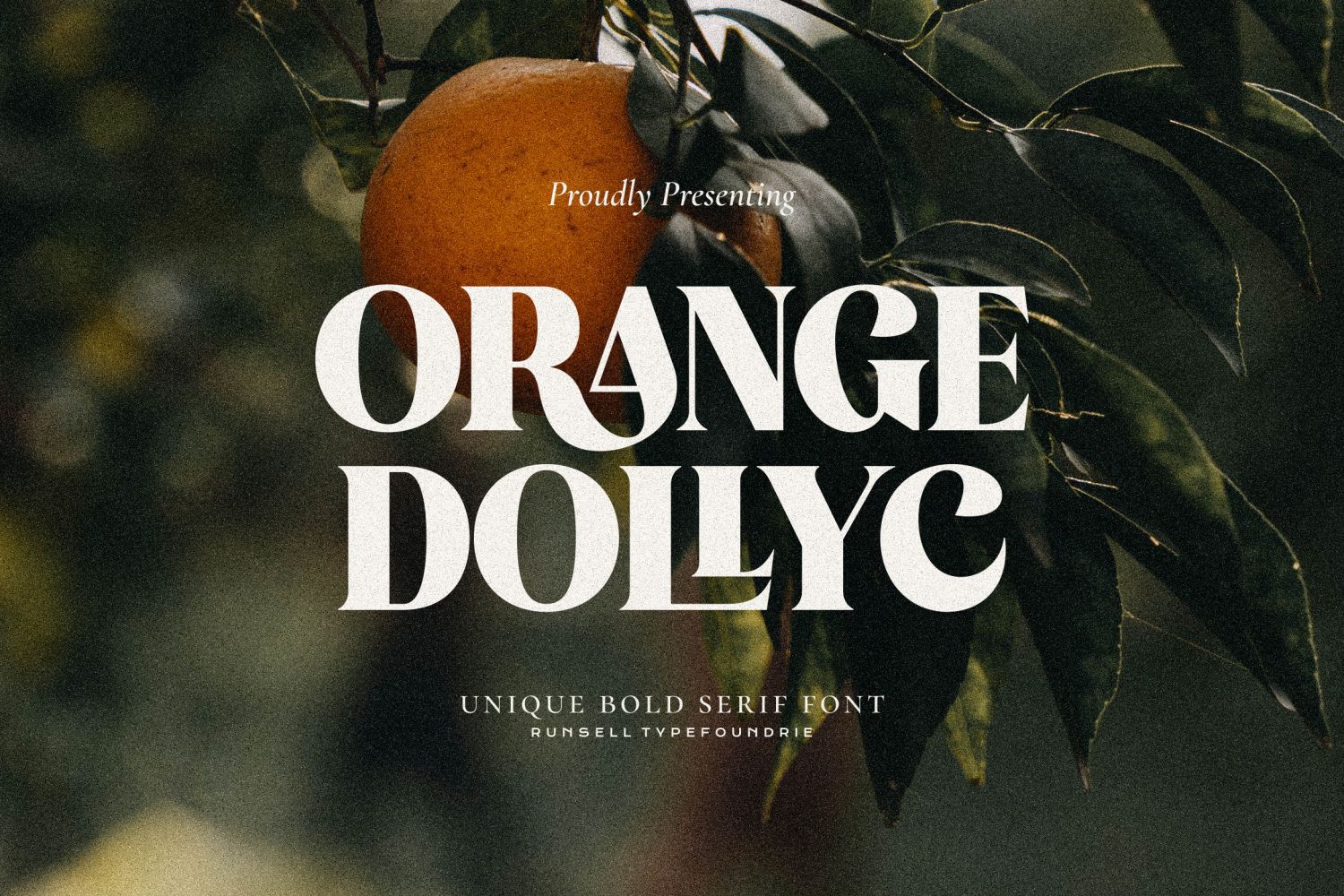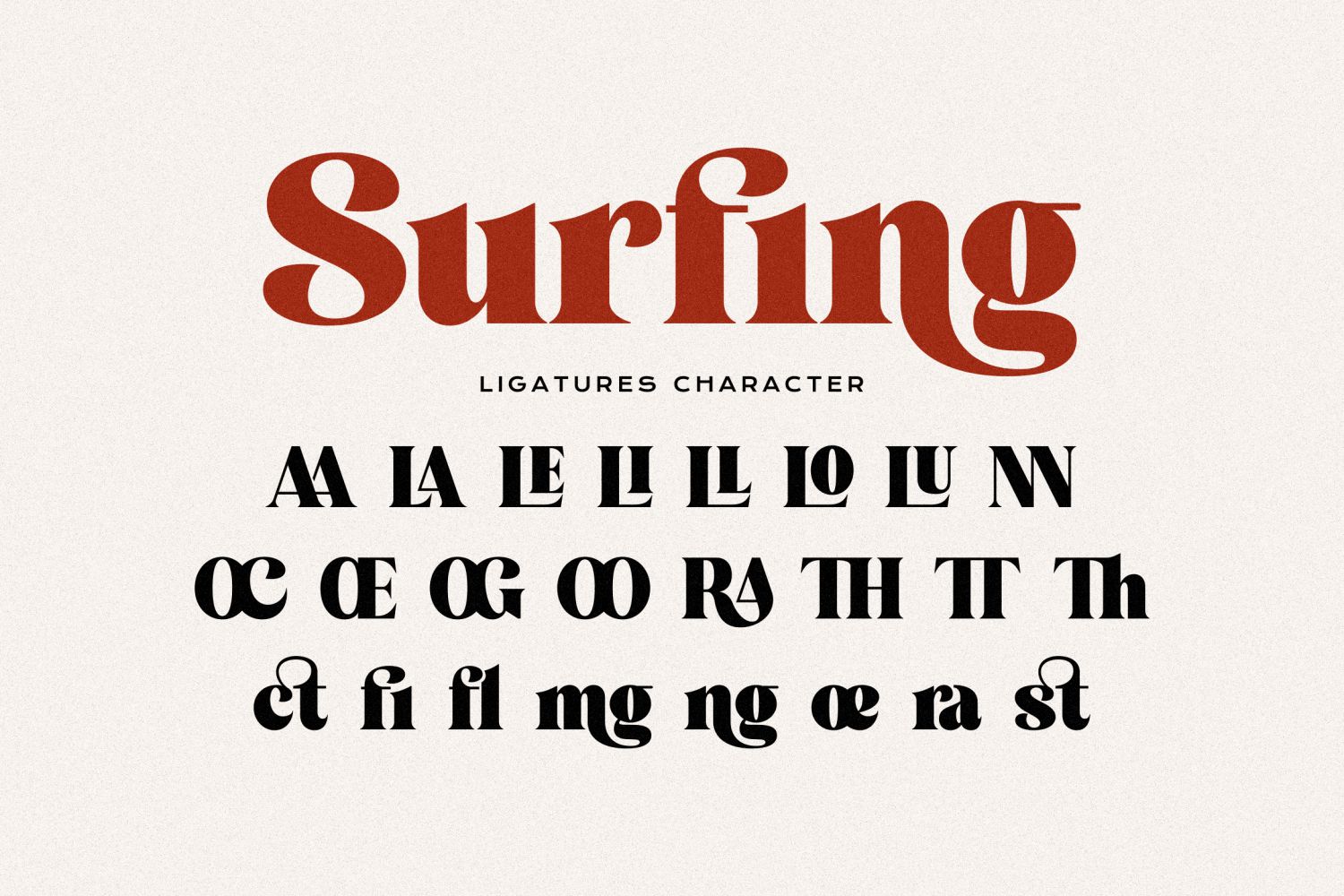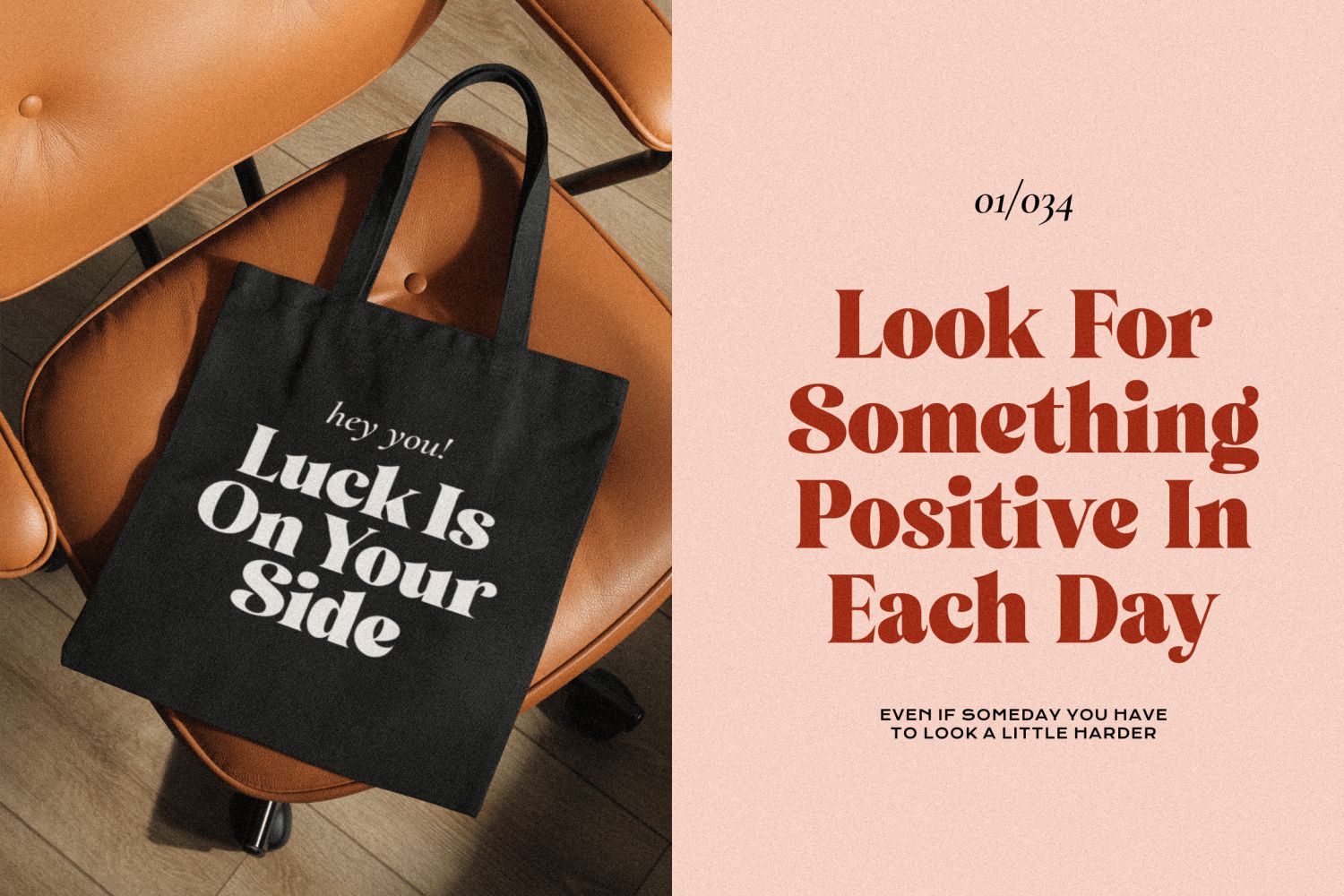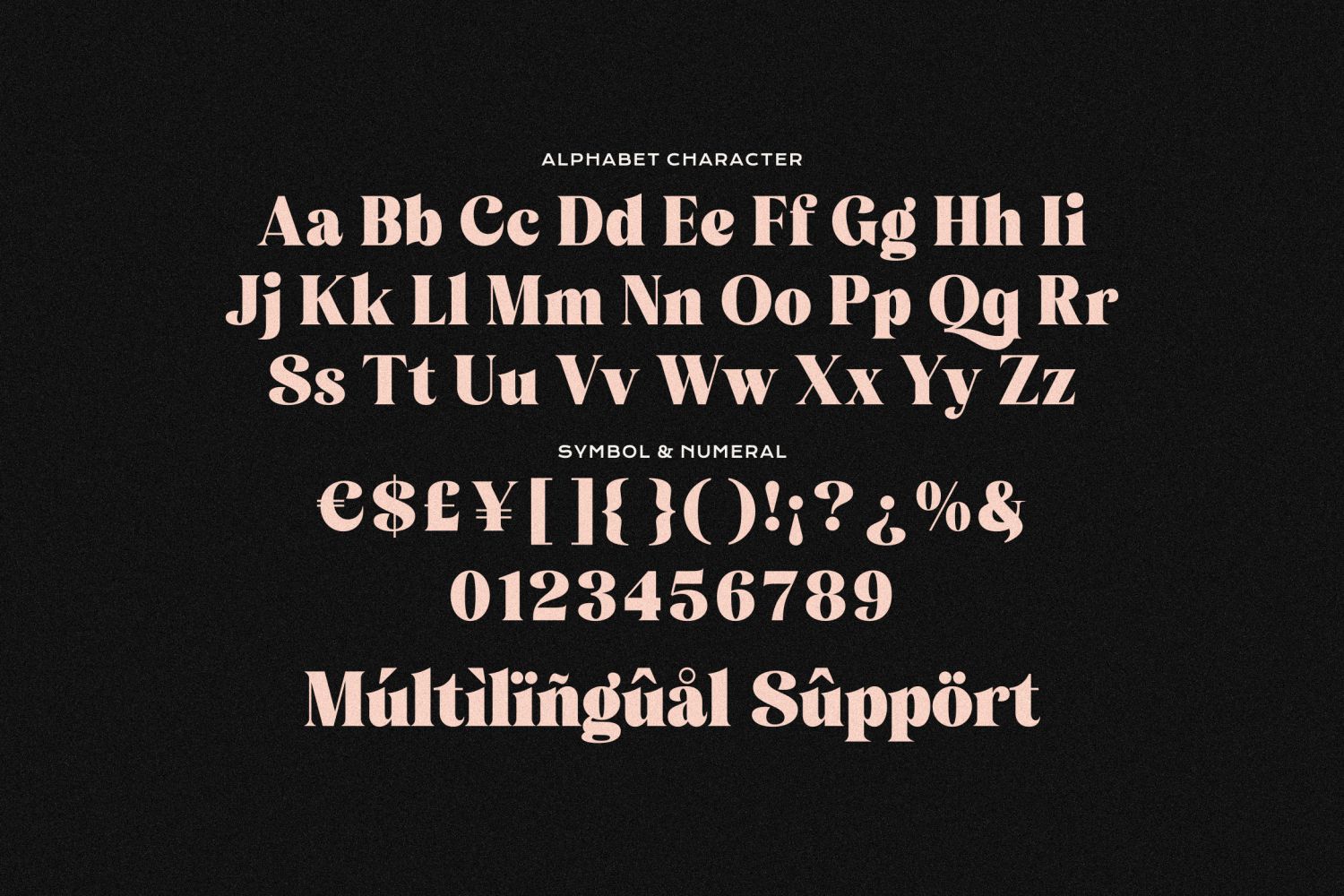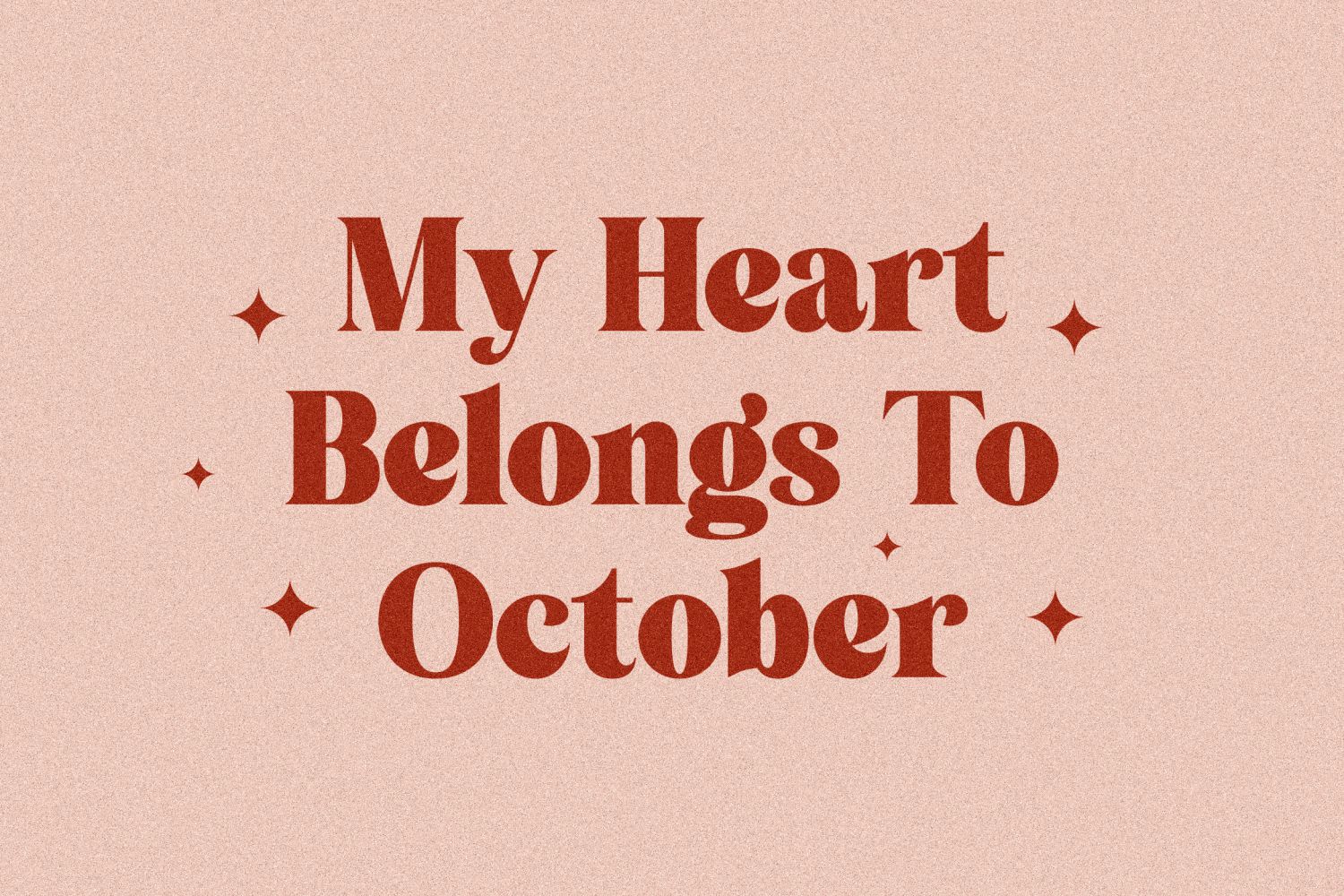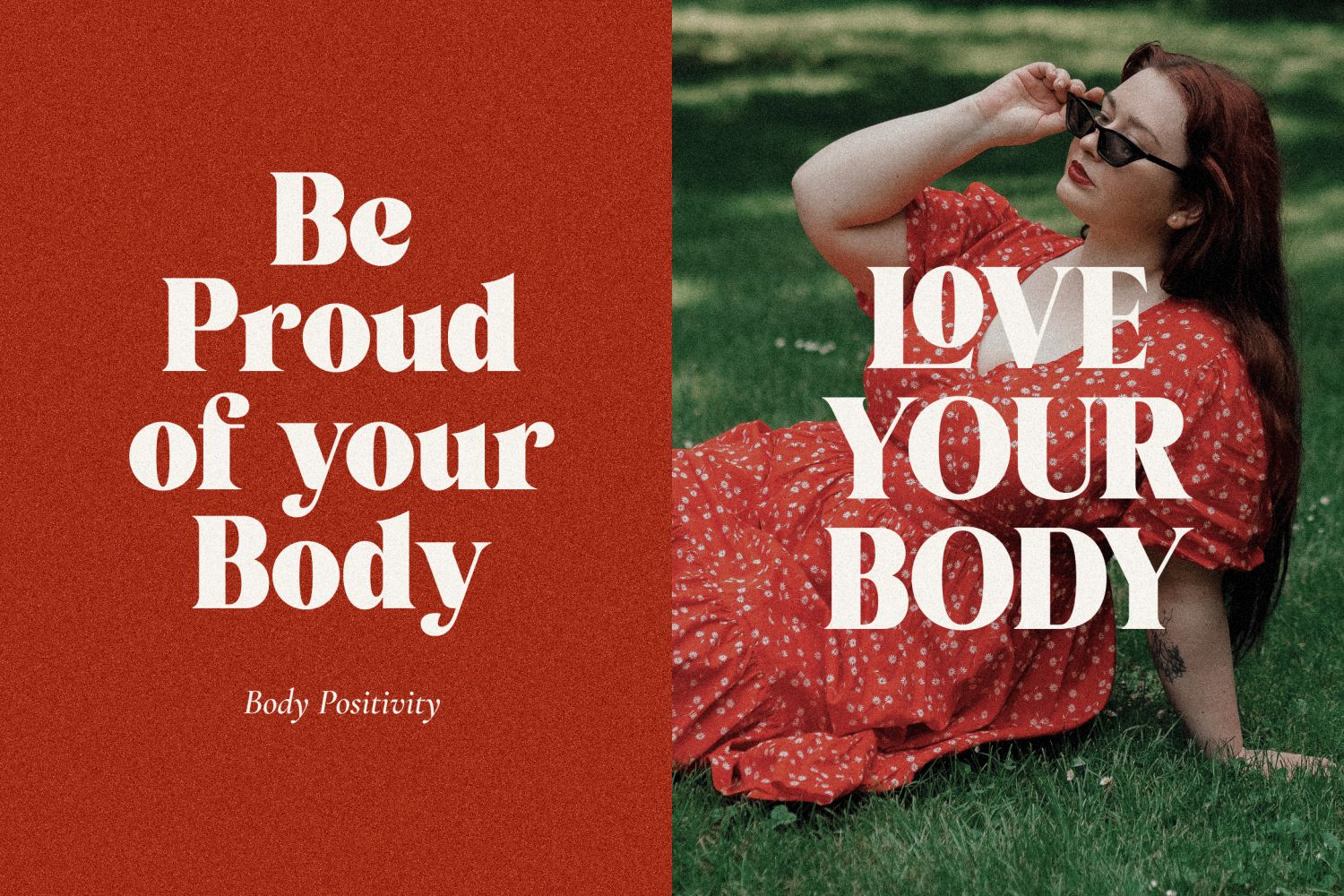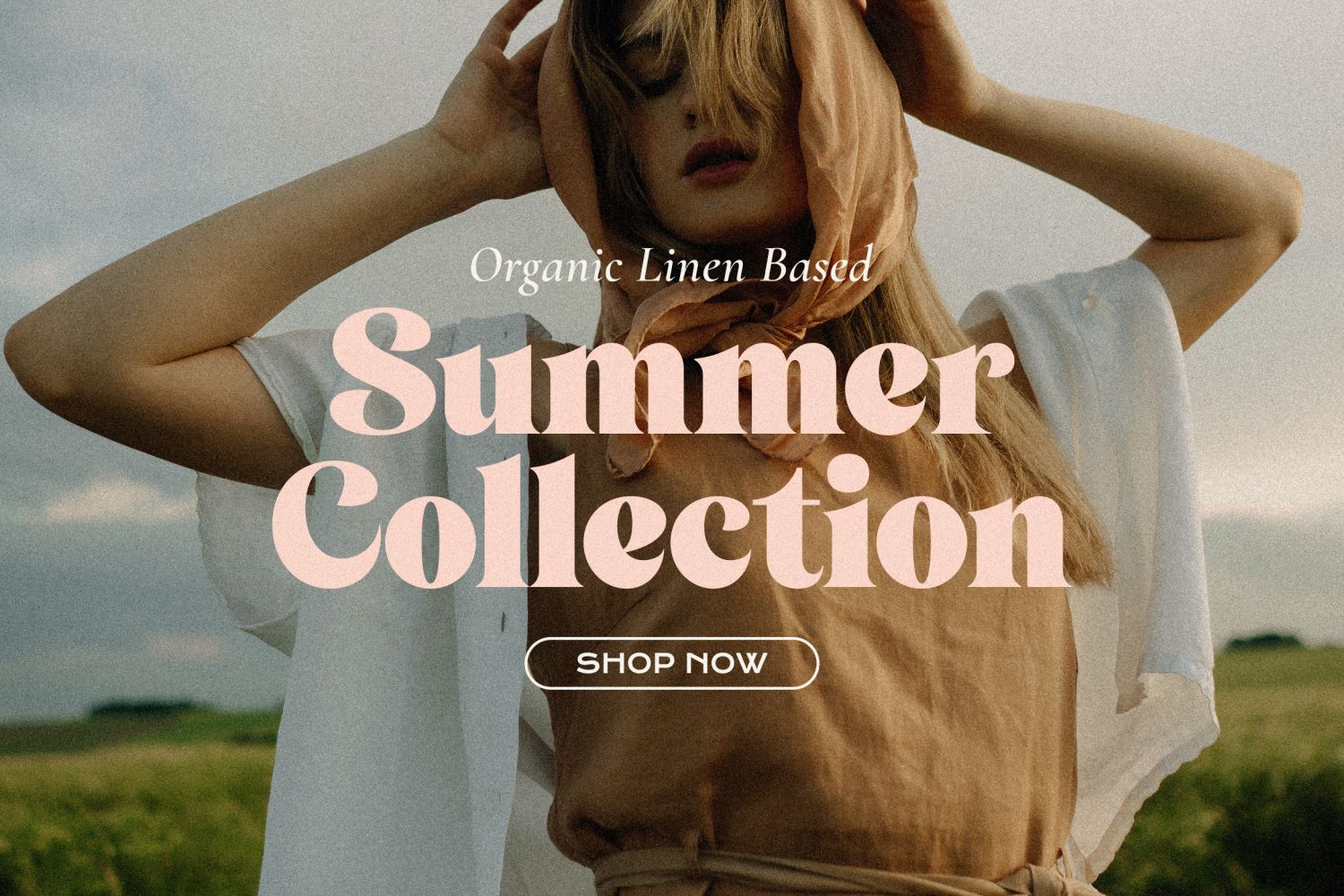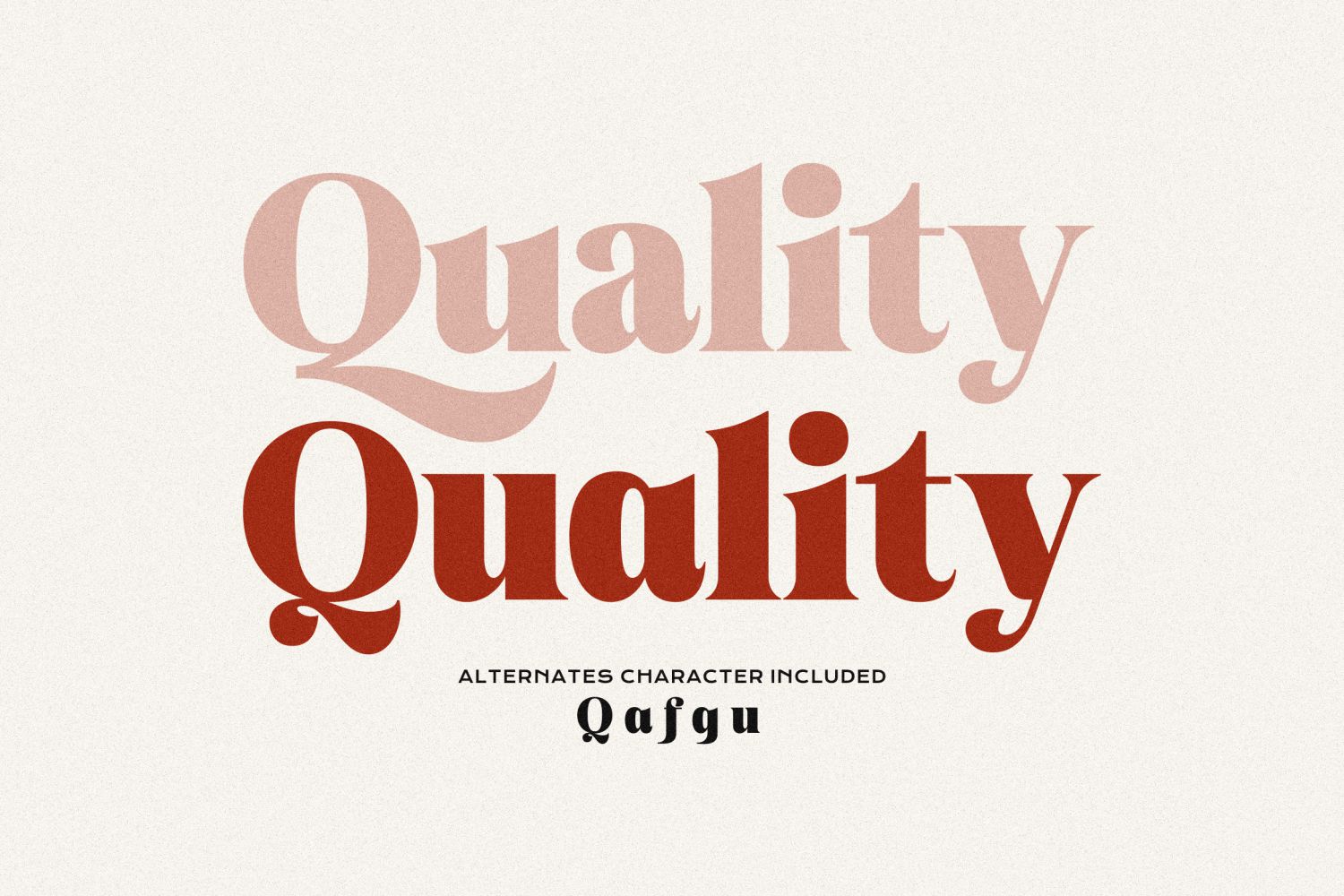
Oranges Dollyc
Orange Dollyc is a bold serif font that seamlessly blends classic elegance with a contemporary twist. With its high contrast strokes, distinctive ligatures, and artistic alternate characters, this typeface brings a strong personality to any design. The rounded yet sharp edges add a playful sophistication, making it a perfect fit for editorial layouts, fashion branding, packaging, and social media graphics.
This typeface is packed with stylistic options, alternate glyphs and ligatures. That empower designers to craft expressive and artistic typography. Whether you’re designing for modern lifestyle brands, body positivity campaigns, or nostalgic yet trendy visuals, Orange Dollyc gives your message a bold and captivating voice.